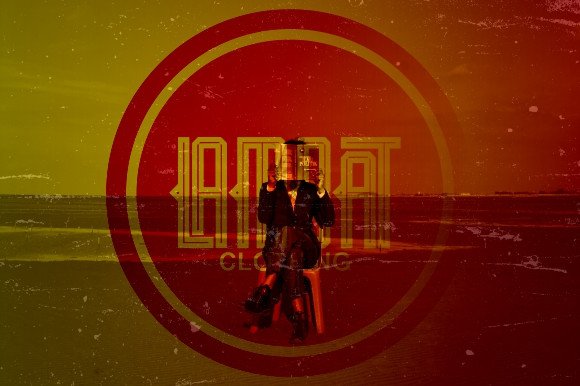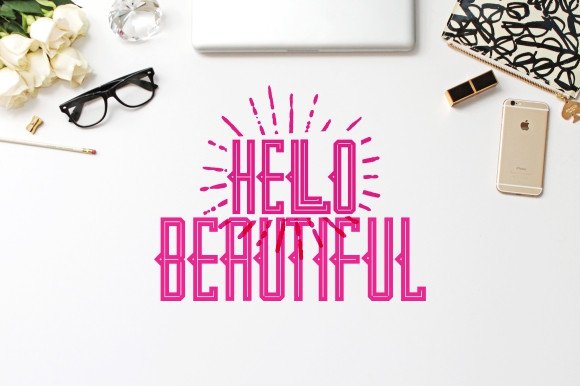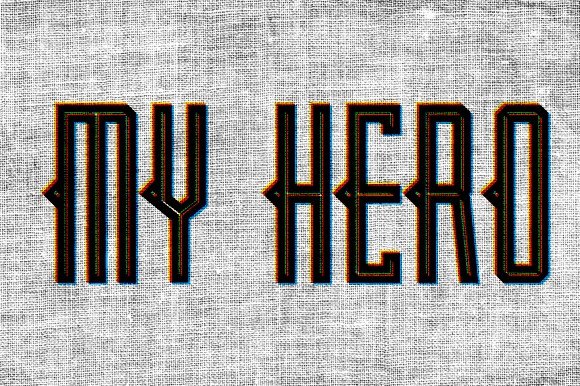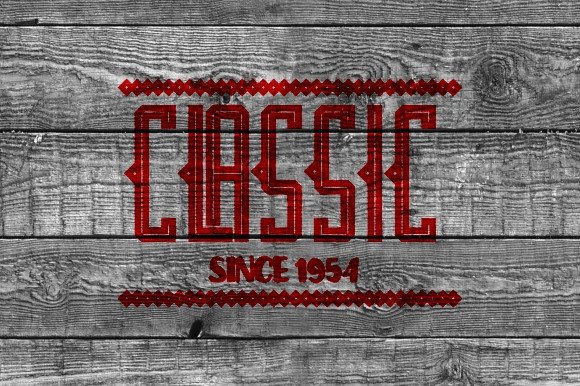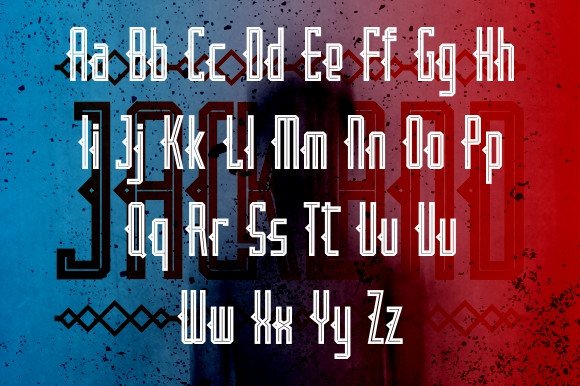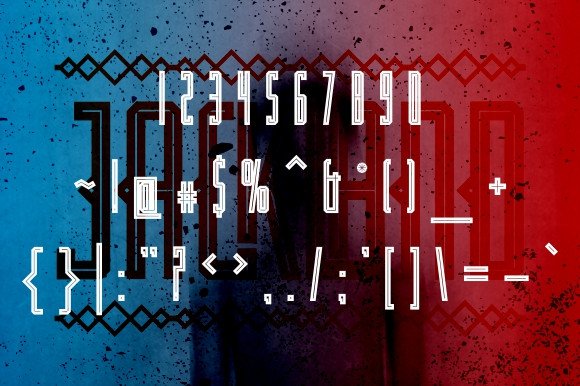
Introduction to Jackland Font
Jackland oozes rustic charm; this inline display font is perfect for retro-vintage designs, but can give your modern design scapes a grounded feel.